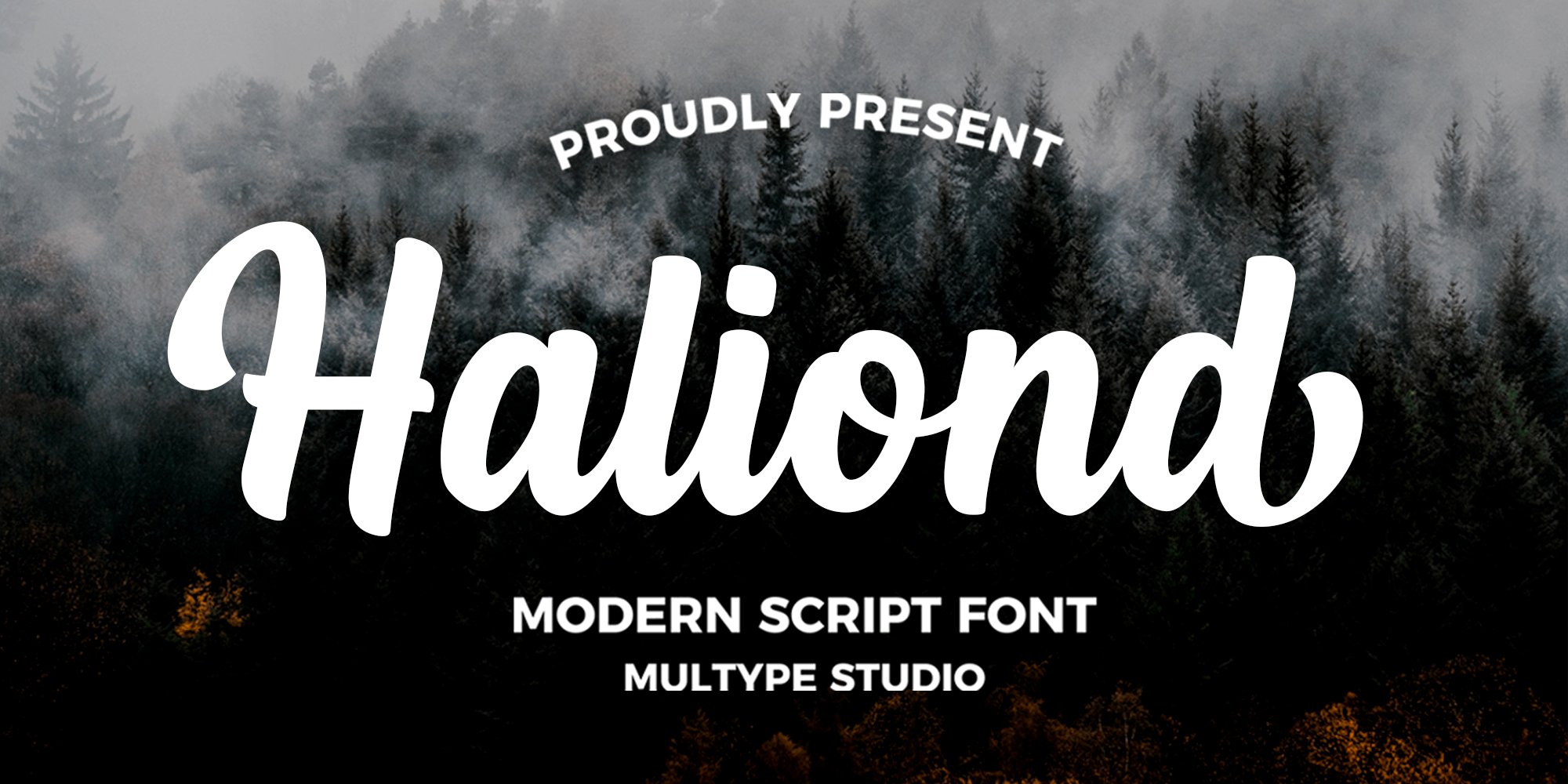
Haliond Font is perfect for luxury jewelry brands, precious metals companies, celestial-themed designs, high-end fashion houses, premium cosmetics packaging, sophisticated wedding materials, elegant cultural events, fine art galleries, and any project requiring typography with radiant sophistication and luminous elegance.
What makes Haliond Font exciting is its luminous brilliance that captures the essence of precious gemstones and celestial radiance with letterforms that seem to shimmer with inner light and divine elegance. This extraordinary typeface embodies the refined beauty of rare treasures with graceful curves and crystalline details that reflect the mesmerizing sparkle of diamonds and the ethereal glow of starlight. The font's radiant character and celestial sophistication make it perfect for brands representing luxury, precious beauty, and the transcendent qualities of exceptional craftsmanship.
The Haliond Font family includes light, regular, and bold weights, featuring complete uppercase and lowercase alphabets, numerals, punctuation marks, and luminous decorative elements. The font maintains consistent celestial elegance throughout all weights while ensuring excellent readability for both brilliant headlines and radiant text applications in luxury and premium contexts.
Whether you're designing for fine jewelry collections, creating luxury brand identities, or developing premium packaging with celestial aesthetics, Haliond Font Free Download delivers unmatched luminous sophistication and radiant elegance to your projects. This magnificent typeface transforms ordinary text into brilliant expressions of luxury and beauty that capture the essence of precious materials and celestial wonder. The font's radiant character makes it ideal for jewelry designers, luxury retailers, and premium service providers. Download this exceptional font today and bring the luminous elegance of celestial beauty to your design projects with authentic radiant sophistication and precious gemstone brilliance.